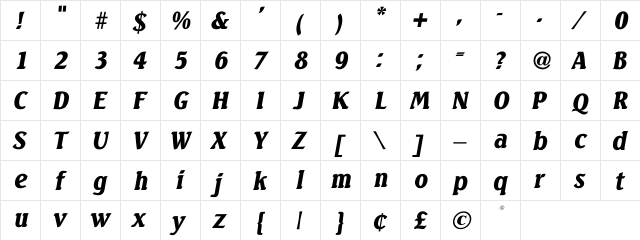
SeasonalBlackIt Regular
Design Context for SeasonalBlackIt Typeface
SeasonalBlackIt offers clean, dependable letterforms without strong stylistic allegiance, making it a practical choice for designers who need flexibility.